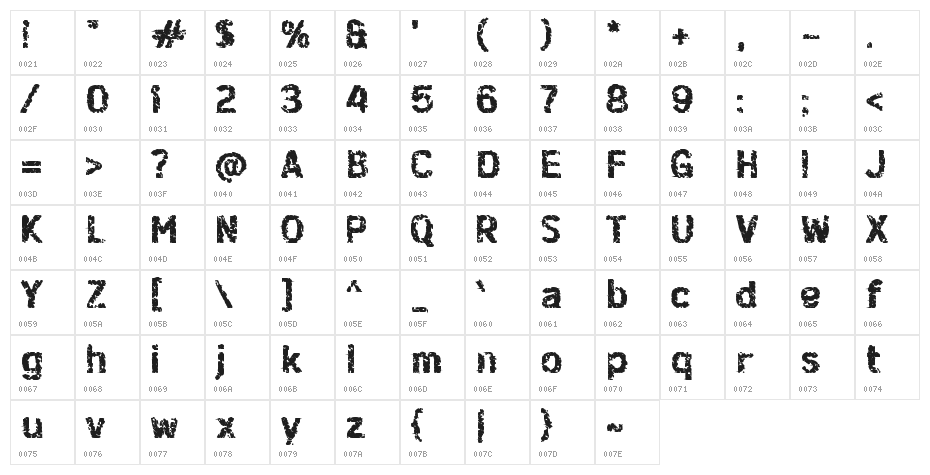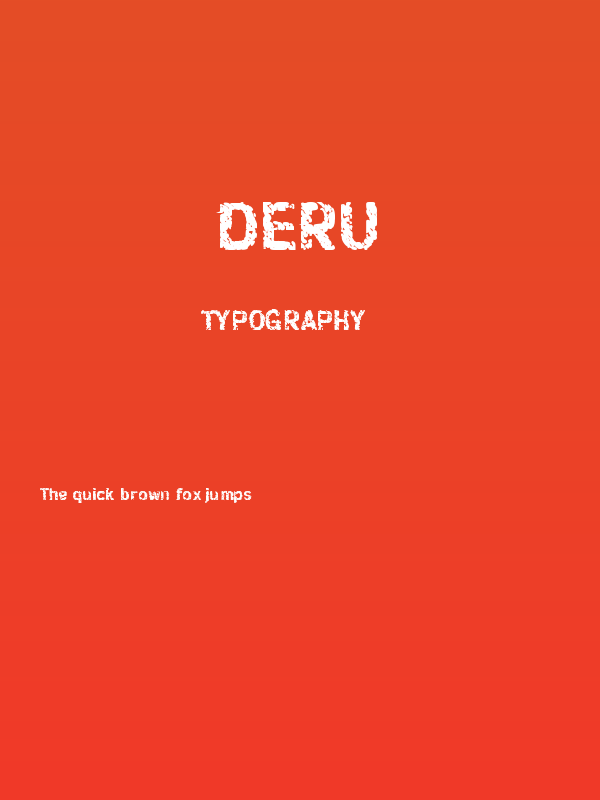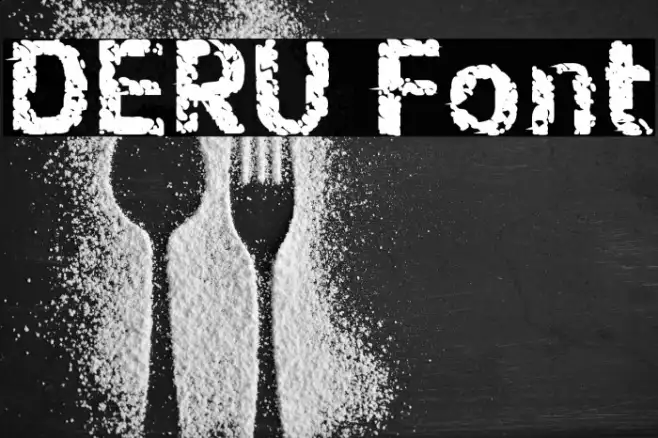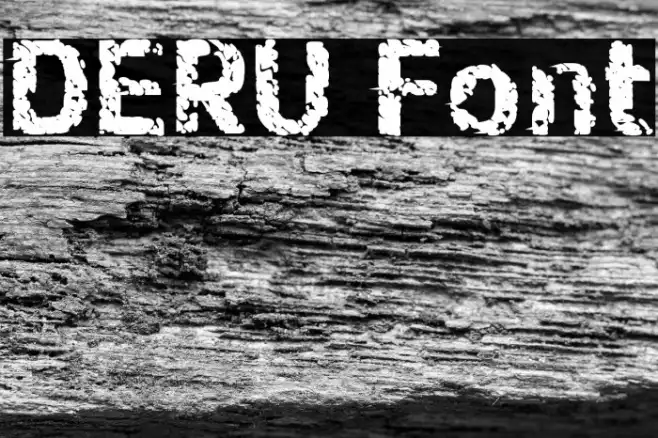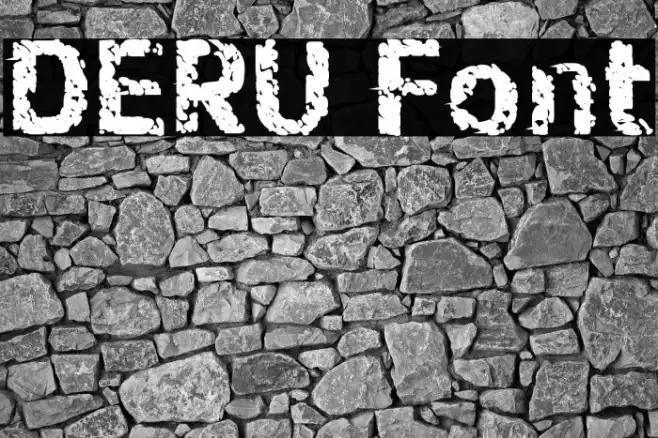
DERU Font
DERU Description
This font features a distressed, textured appearance, giving it a rugged and worn look. The characters are bold and substantial, with a rough, uneven surface that suggests a vintage or grunge aesthetic. The uppercase and lowercase letters maintain consistent proportions, while the numbers and special characters follow the same distressed style. This font's unique texture makes it stand out, adding a dynamic and edgy feel to any design. The irregularities in the strokes create a sense of movement and energy, making it ideal for projects that require a bold statement.
| Overall Style | Grunge, Vintage |
| Proposed Projects | Ideal for album covers, posters, branding for edgy products, or any design needing a vintage or grunge touch. |